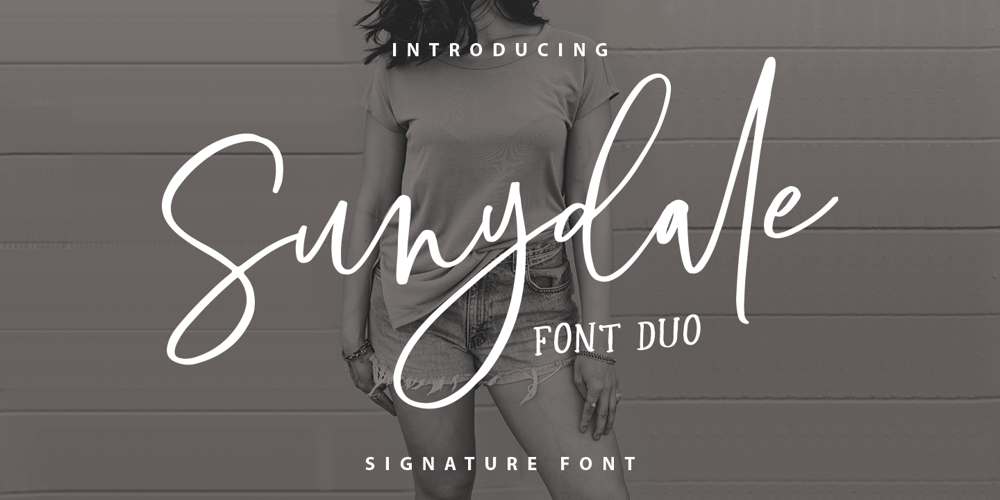
Sunydale Font Duo Font Family was designed by Faisal Tanjung and published by sizimon. Sunydale Font Duo contains 2 styles and family package options. Introducing our latest product the Sunydale Font Duo! classy, contemporary pair of script and serif fonts. It is free-flowing, feminine, fashionable and friendly. Sunydale is perfect for fashion, e-commerce brands, trend blogs, or any business that wants to appear classy and chic.Sunydale Includes: Uppercase, lowercase, numeral, punctuation & Symbol multilingual support Stylistic alternates Discretionary ligatures 2 swash (numeral keys) PUA Encoded Characters Fully accessible without additional design software. To access the alternate glyphs, you need a program that supports OpenType features such as Adobe Illustrator CS, Adobe Photoshop CC, Adobe Indesign and Corel Draw.If you have any question please do not hesitate to contact me.Thank You!